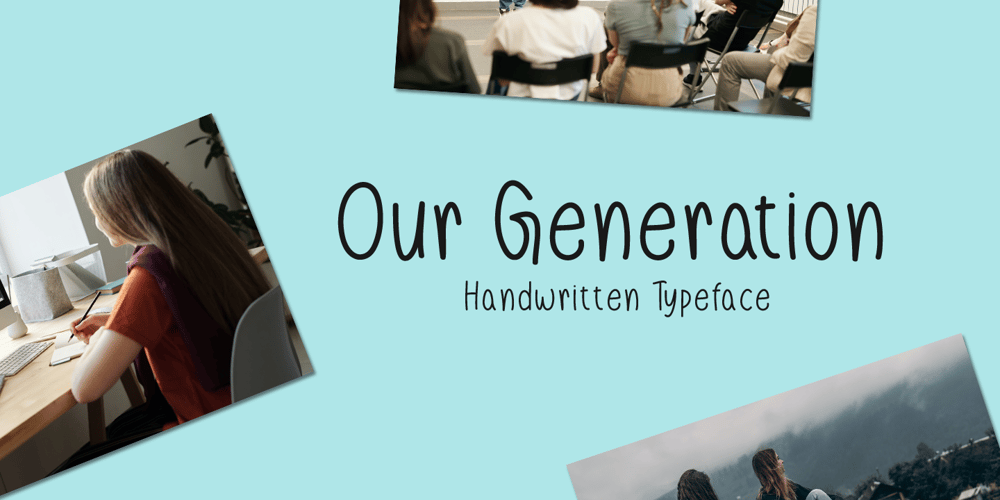
Our Generation
Our Generation font
Our Generation Font Family was designed by Md Shohail Bhuian and published by Seemly Fonts. Our Generation contains 1 styles and family package options. Our Generation is a brand new handwritten font. Our Generation is perfectly suited for stationery, logos, t-shirt, paper, print design, website header, photo frame, flyer, music cover, poster, image slider, and much more.